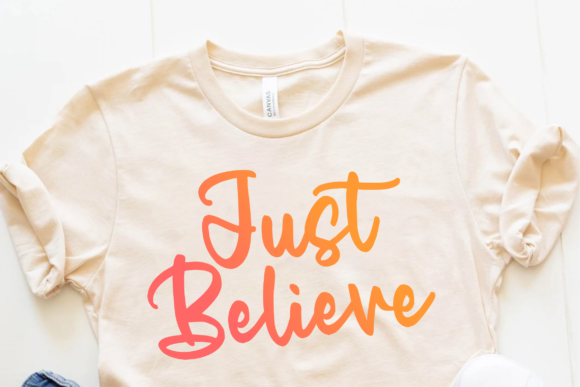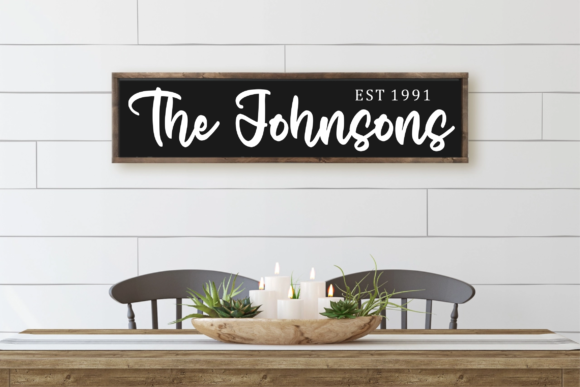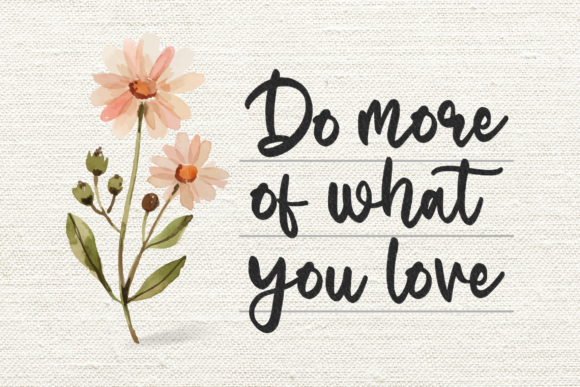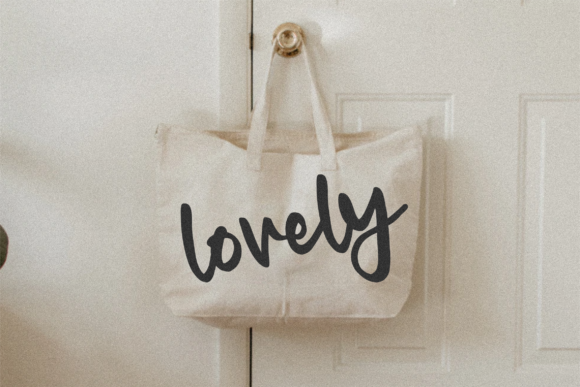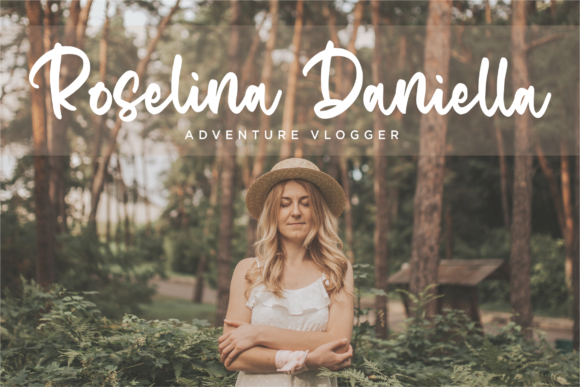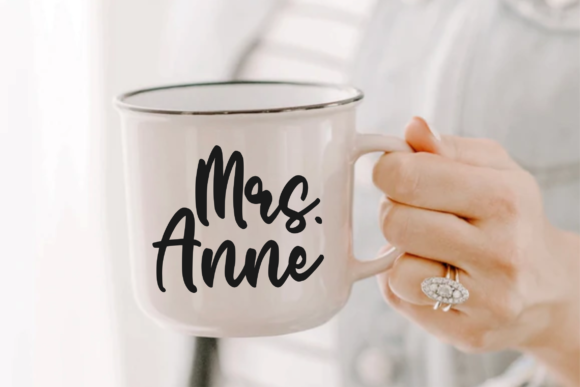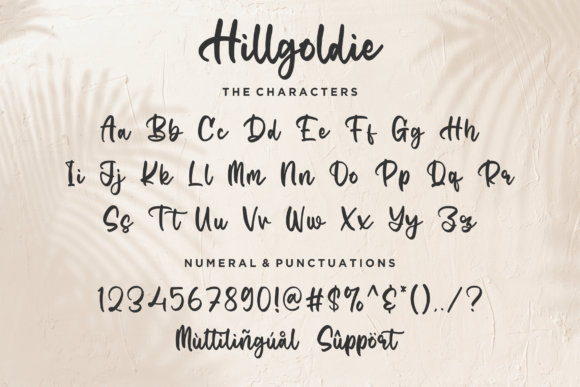
Hillgoldie Font
About Hillgoldie Font
Hillgoldie is a clean and paint brushed handwritten font.
It is perfect for product packaging, branding project, magazine covers, social media posts, wedding invitations, or just used to express words above the background.